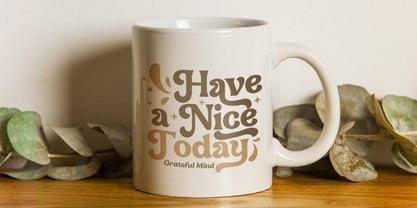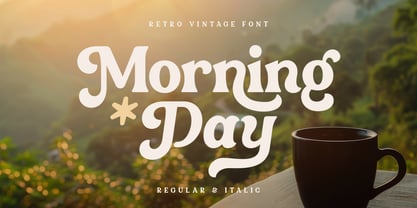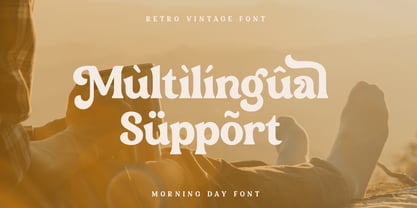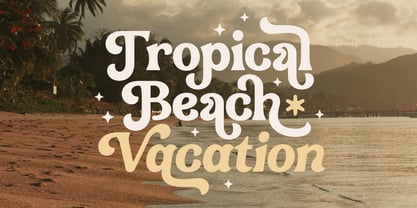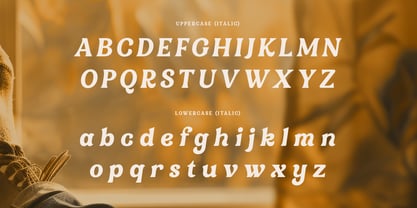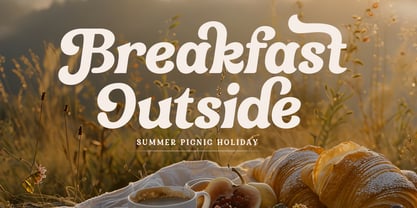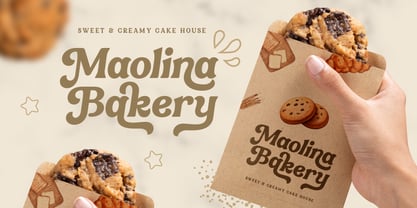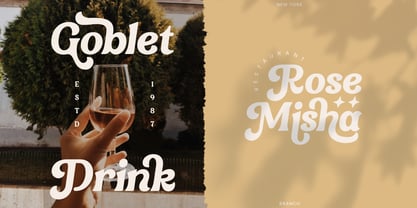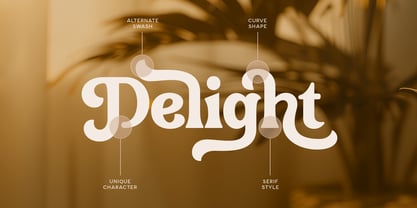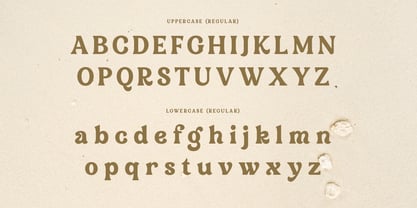
Morning Day
Morning Day - Retro Vintage Font
Morning Day is a retro vintage font that beautifully captures the essence of nostalgic design while maintaining a modern edge. Inspired by the timeless aesthetics of the past, it adds a touch of warmth and charm to any project, making it perfect for brands looking to evoke classic elegance. From posters to logos, this font radiates a unique personality that draws attention.
Its bold curves and vintage flair are ideal for branding projects, packaging, or even creative headlines, helping your designs stand out in both digital and print mediums. Morning Day embraces the past while being versatile enough to be used in contemporary designs, offering a blend of old-school charisma with modern functionality.
With OpenType features and alternate characters, Morning Day allows for creative flexibility, giving your work a custom feel. Whether for logos, labels, or invitations, this retro vintage font is designed to bring your vision to life with a touch of history.
Morning Day Retro Vintage Font Features:
• Retro Vintage Alternate Characters Ready
• Available in Regular & Italic Version
• Punctuation, Number, and Symbol
• Uppercase and Lowercase
• Multilingual Support
• Opentype Features